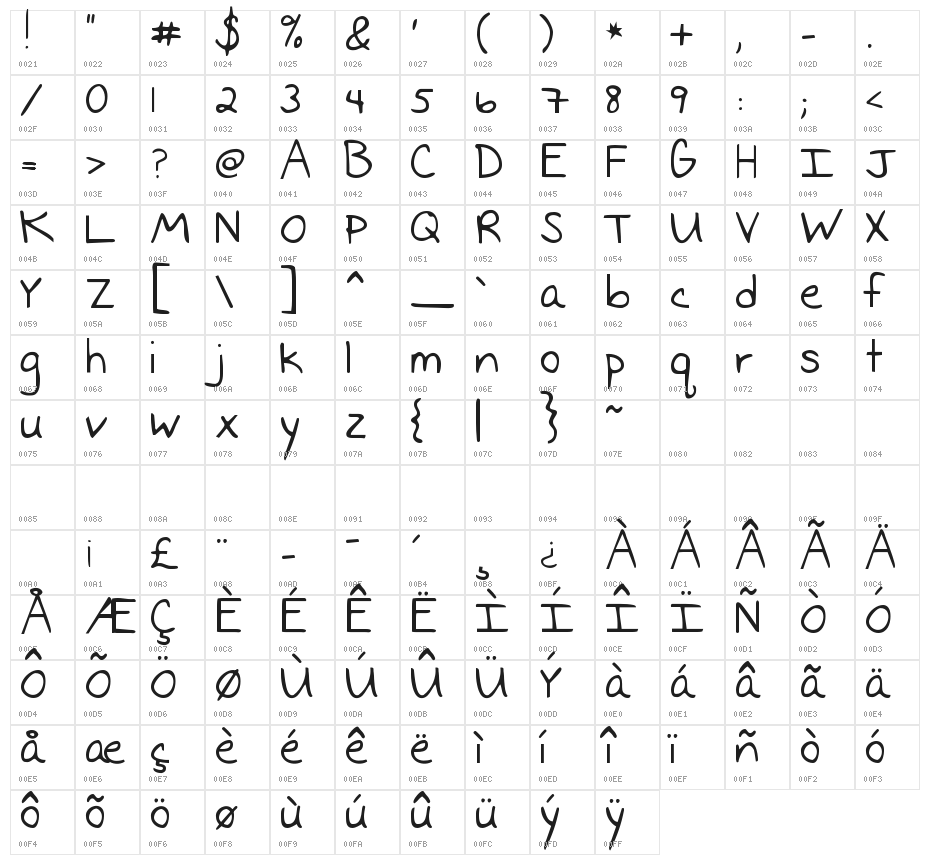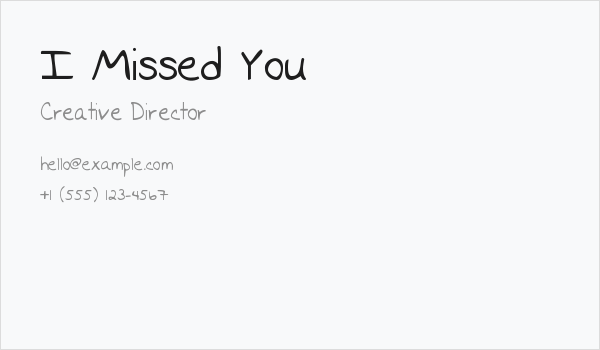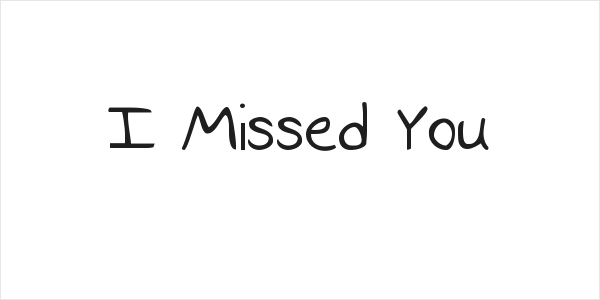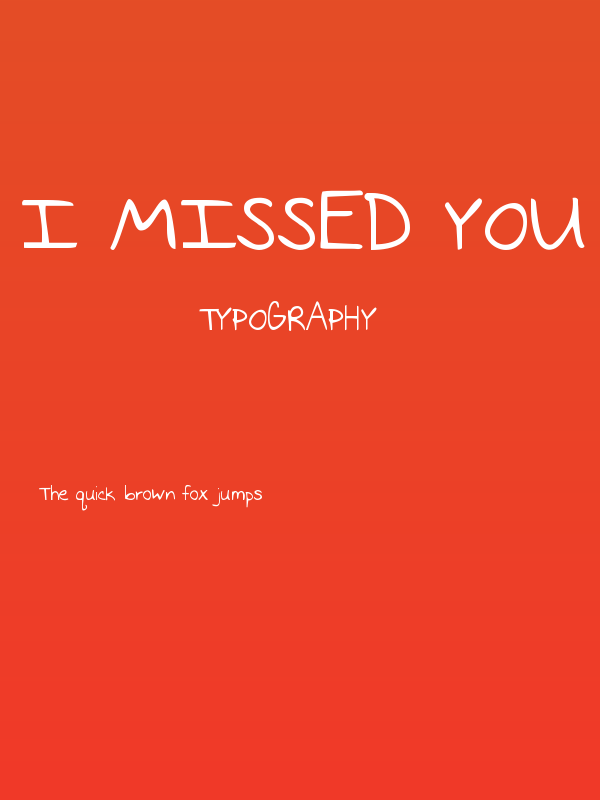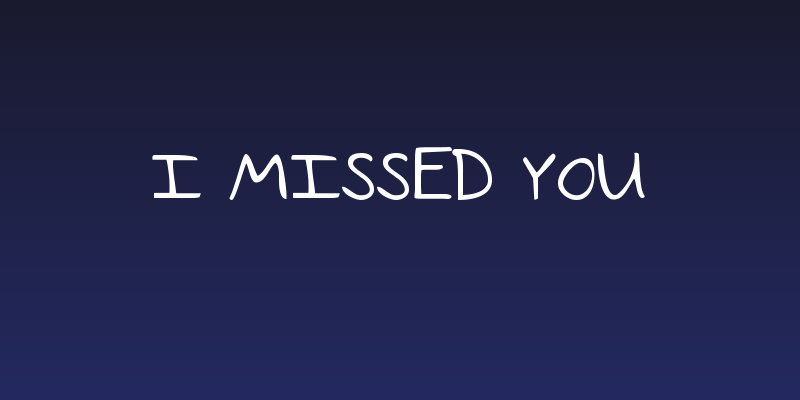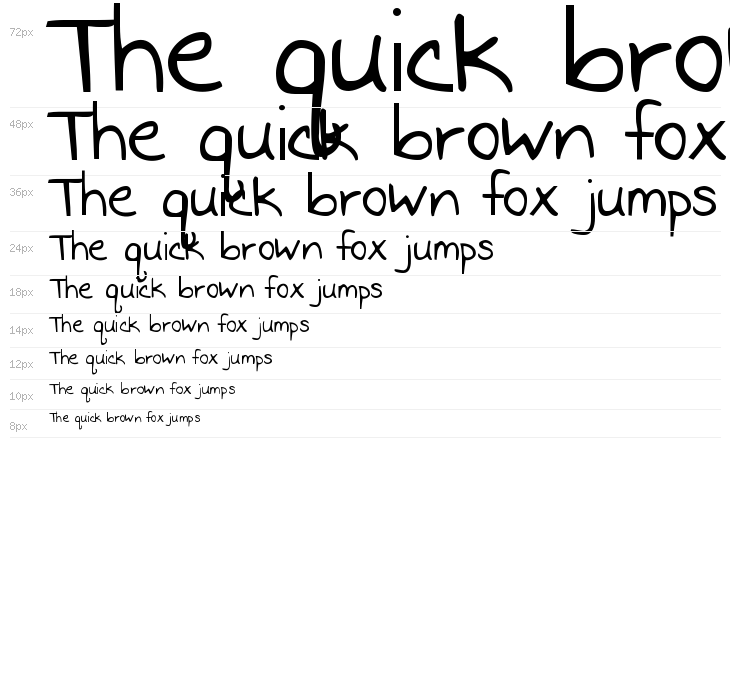
I Missed You Font
I Missed You Description
This playful and whimsical font features a handwritten style with a casual and friendly appearance. The letters are slightly irregular, adding a personal touch that mimics natural handwriting. The uppercase and lowercase characters maintain a consistent flow, with rounded edges and a smooth, flowing line quality. The numerals and special characters complement the alphabet with similar characteristics, enhancing the font's cohesive look. This font exudes a sense of warmth and approachability, making it ideal for projects that require a personal or informal tone.
| Use Case | Headlines, Informal text, Personal projects |
| Proposed Projects | Greeting cards, children's books, personal blogs, informal invitations, and playful branding. |